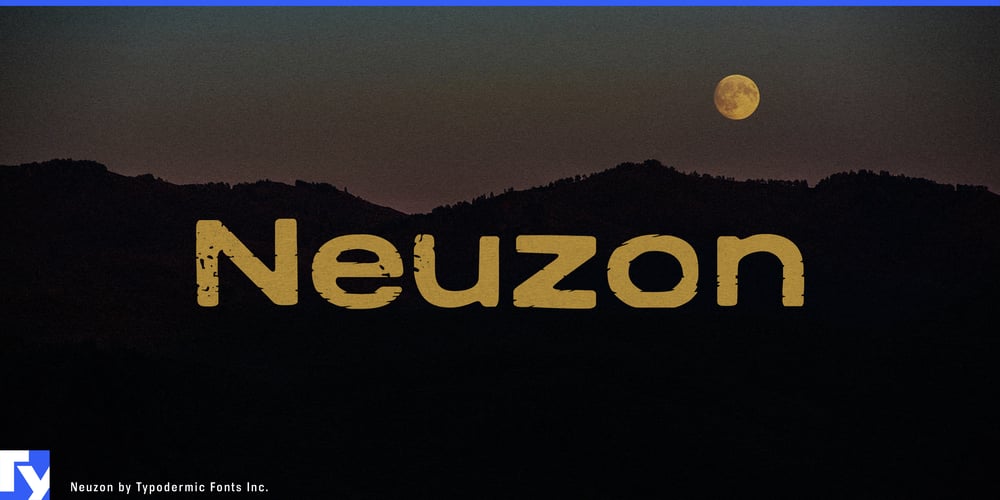
Neuzon Font Family was designed by Ray Larabie and published by Typodermic. Neuzon contains 1 styles and family package options. Step into a world where the artistry of vintage typography meets modern design sensibility with Neuzon, a typeface that breathes new life into the rich legacy of metal typesetting. This bold, textured creation pays homage to the iconic Tempo Bold Extended, reimagining its classic forms for contemporary audiences.Neuzon’s charm lies in its meticulous attention to detail. The typeface features unique custom letter pairings that shatter the monotony of repeating characters, infusing each line with a bespoke, handcrafted feel. This subtle artistry evokes the imperfections of ink on paper, creating a warmth and authenticity that digital perfection often lacks. The wide letterforms of Neuzon command attention, making it an ideal choice for headlines that demand to be noticed. Whether you’re crafting a vintage-inspired poster, designing a retro-chic logo, or adding a touch of nostalgia to your web presence, Neuzon’s distinctive personality elevates your message from mere words to a visual experience.But Neuzon isn’t just about looks—it’s a workhorse typeface built for the global stage. Its character set spans a vast linguistic landscape, covering most Latin-based European writing systems. From the fjords of Norway to the plains of Hungary, from the rugged coastlines of Scotland to the sun-drenched shores of Portugal, Neuzon ensures your message retains its vintage charm across borders and cultures. In a design world often dominated by sleek minimalism, Neuzon offers a refreshing alternative. It’s for creators who understand that true impact comes not just from what you say, but how you say it visually. With Neuzon, every headline becomes a statement, every logo a conversation piece.Embrace the power of typographic nostalgia. Let Neuzon be the voice of your most captivating ideas, bridging past and present in designs that resonate on a deeper level. Make your mark with Neuzon—where every letter tells a story.